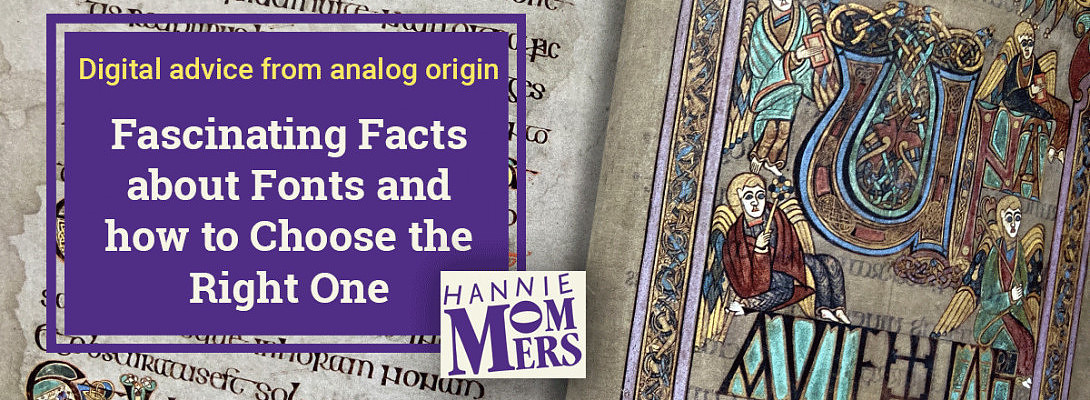
Fascinating Facts about Fonts and how to Choose the Right One
Digital advice from analog origin (3)
Why is English read from left to right and from top to bottom? That’s because of the origin of our texts. Most people are right-handed and writing with material like ink that smudges easily makes it logical to write from left to right.
The Egyptians did not have a fixed direction for their texts. They didn't use letters, but hieroglyphs (pictograms, little images). The orientation of the heads of depicted animals indicated the reading direction.
In classical times letters were carved out of stone with a hammer and chisel. This technique doesn’t require making the letters from left to right. In really old Greek texts there is no fixed reading direction. But it was inconvenient not to know the reading direction.
For our computer screens it doesn't matter what the reading direction is, but we had been used to reading from left to right for centuries and then placing the lines from top to bottom.
The (very short) history of print
The first books were handwritten and meticulously copied by monks in the convents. A time-consuming activity.
A quicker method was woodblock printing, when a whole page was cut in a block of wood. Imagine the horror when it turned out there was a typo somewhere in the text! Once cut and used the piece of wood was redundant.
The movable-type printing solved that problem. Each letter was a separate little block of metal, usually of lead, that could be reused several times and swapped in case of errors.
The letter terminology derives from the lead letters. Body height, X-height, Cap height, baseline, leading (line-height), point size. The technique had its limitations. For instance, you couldn’t put letters too narrow next to each other, neither use a negative leading.
The benefit of restrictions
Those analog limitations don’t exist in the digital world of text. But as my famous fellow countryman Johan Cruijff said: ‘every disadvantage has its advantage’, which I often translate into ‘every advantage has its disadvantage’.
People get into trouble if choices are unlimited. This can either mean they don’t want to make a choice, as a demonstration host in the supermarket will find out. Giving the choice from 28 kinds of instant soup generates less interest than limiting the choice to 4.
Or it leads to an abundance of chosen options. Very noticeable in amateur video edits: each image transition has a different effect.
Unsurprisingly, I am a big fan of the German saying 'In die Beschränkung zeigt sich der Meister' (The master shows himself in the limitation).
Classification of letter fonts
- Serif, sometimes with an additional subdivision to Slab Serif. Examples are Times New Roman, Garamond, Didot, Georgia, Roboto Slab, Egyptienne, Rockwell;
- Sans serif. Helvetica, Arial, Droid Sans, Univers, Frutiger;
- Script. Balloon, Zapfino, Chalkboard;
- Decorative. Stencil, Cooper Black, Bauhaus;
- Symbol. Wingdings, Zapf Dingbats.
In fact there are more divisions and subdivisions, but let’s keep it limited. :)
Does a letter have a character?
Your handwriting says something about you, doesn’t it. In my time (sorry, I really sound old now, LOL) it was common to write a cover letter and not type it so that your handwriting was your first entry.
You can look at print letters the same way.
When I designed a logotype for a construction firm I chose a robust Slab Serif. For a female solo entrepreneur a friendly and rounded letter was more obvious. A copywriter was given a Script letter or a monospace like Courier. For a toy store Comic Sans was appropriate.
That's the first choice you have to make when choosing a font: does the font match what you are doing. It is not about your own taste, but about what your target audience expects.
The downside of just meeting your audience's expectations is the uniformity. So the trick is to know what those expectations are and what your competitors are doing and then deviate just enough. The tightrope of the right balance.
Your blog is read on screen
Choose a letter that is properly drawn and has a clear appearance on the screen. Fonts that are optimized for display on screen are for instance Tahoma, Verdana, Georgia.
Be consistent in your choice. You can choose different font families for body text and headings. Just make sure the characters of those letters are in line with each other. And if you do, stick to one type for the body text and one type for the headings.
An unexpected reason for your choice
Research shows that when the text of tutorials is easy to read, people rate the task as easy, beautiful, good, and true (Research by Hyunjin Song and Norbert Schwarz).